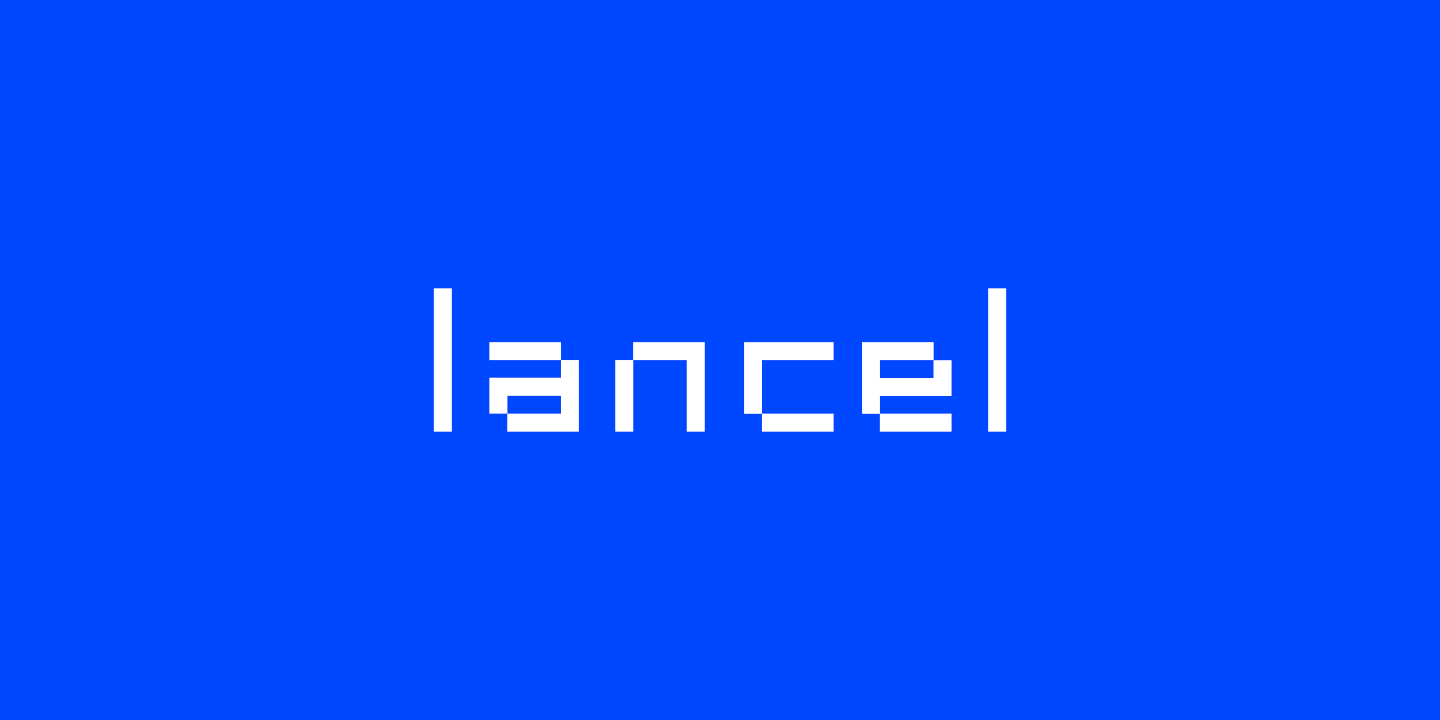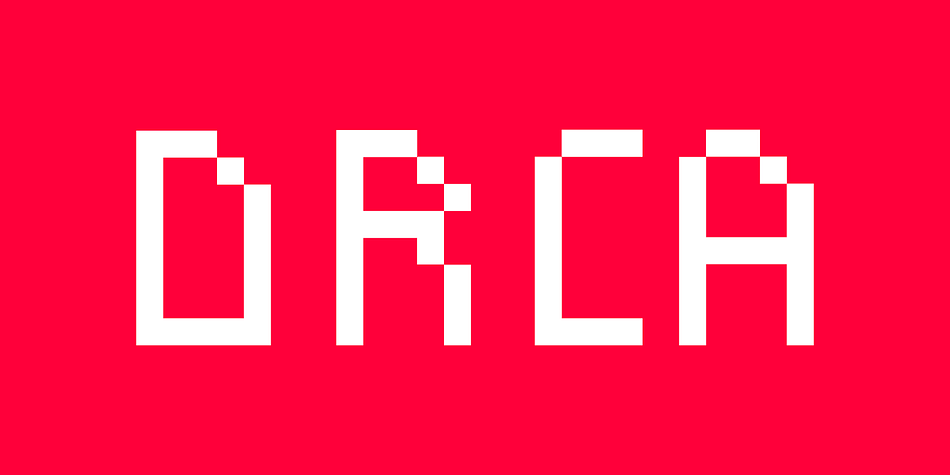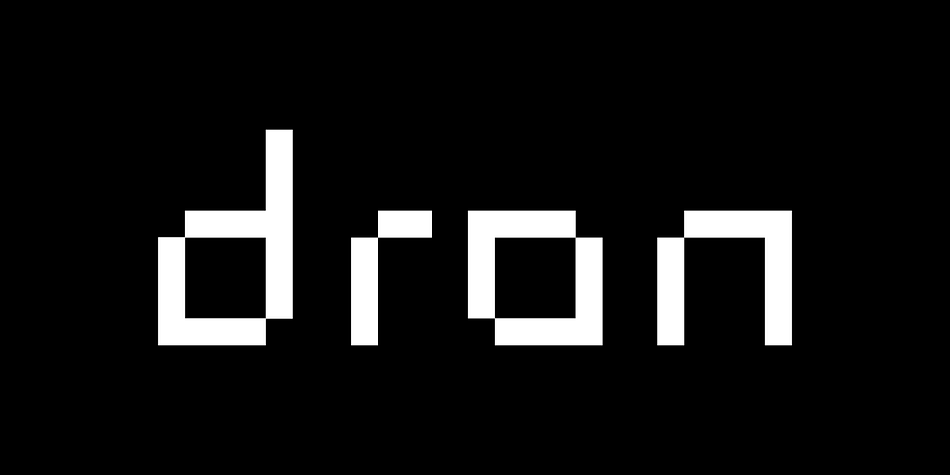
Groutpix Flow
Groutpix Flow is a pixel font family published by ffeeaarr.
Unleash your inner code warrior. Speak the language of the digital realm. This font’s for those who push boundaries and break the mold. It’s the perfect voice for your next tech project, gaming venture, or anything that demands a pixelated punch.